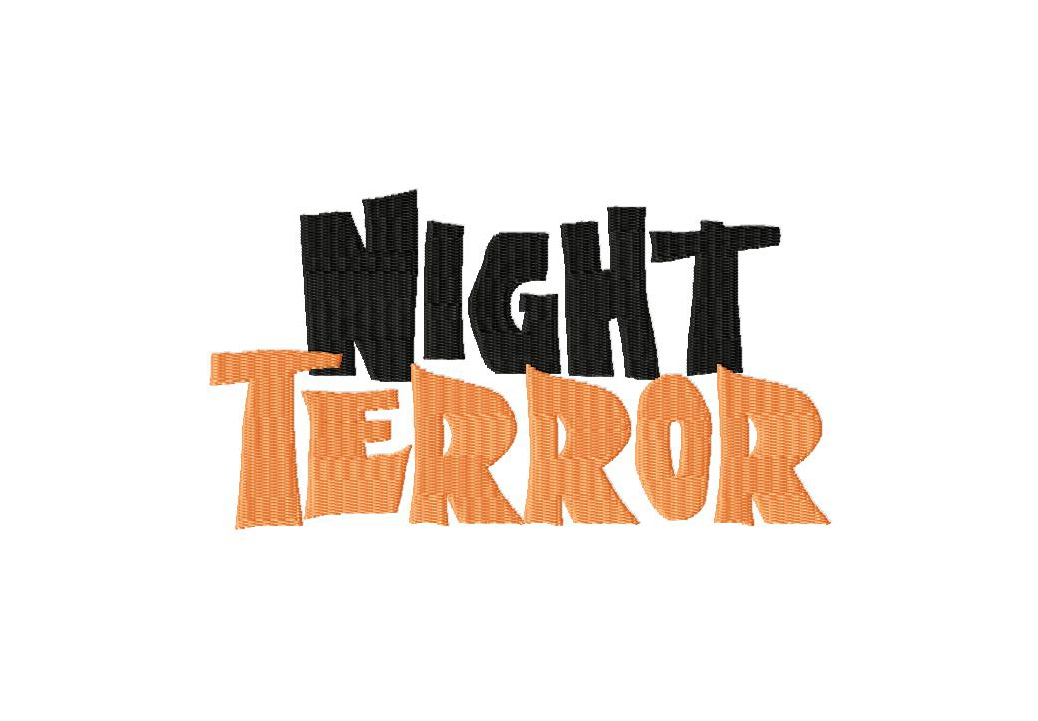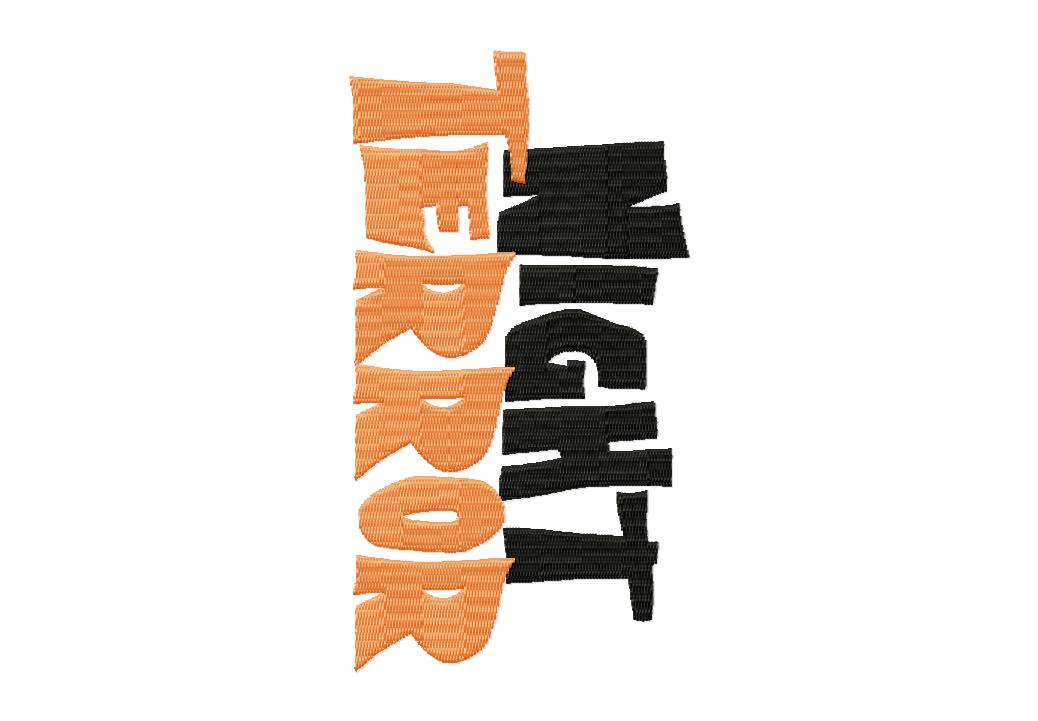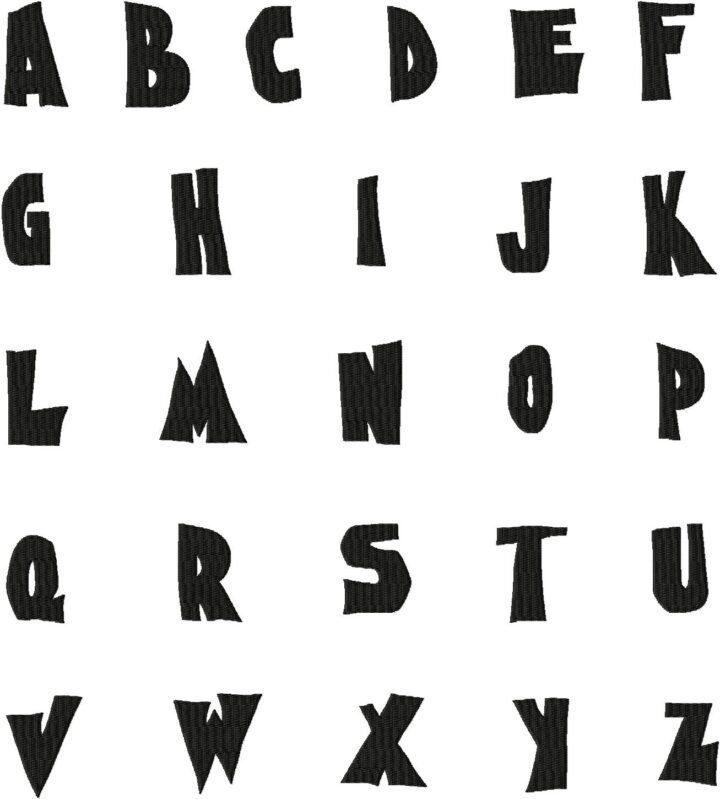
Night Terror Halloween inspired Machine Embroidery Font Set
This scary font is all spooks and screams! Great for Halloween Monogramming. Includes all 26 letters and all of the following sizes: 1″ 2″ and 3″
This scary font is all spooks and screams! Great for Halloween Monogramming. Includes all 26 letters and all of the following sizes: 1" 2" and 3"